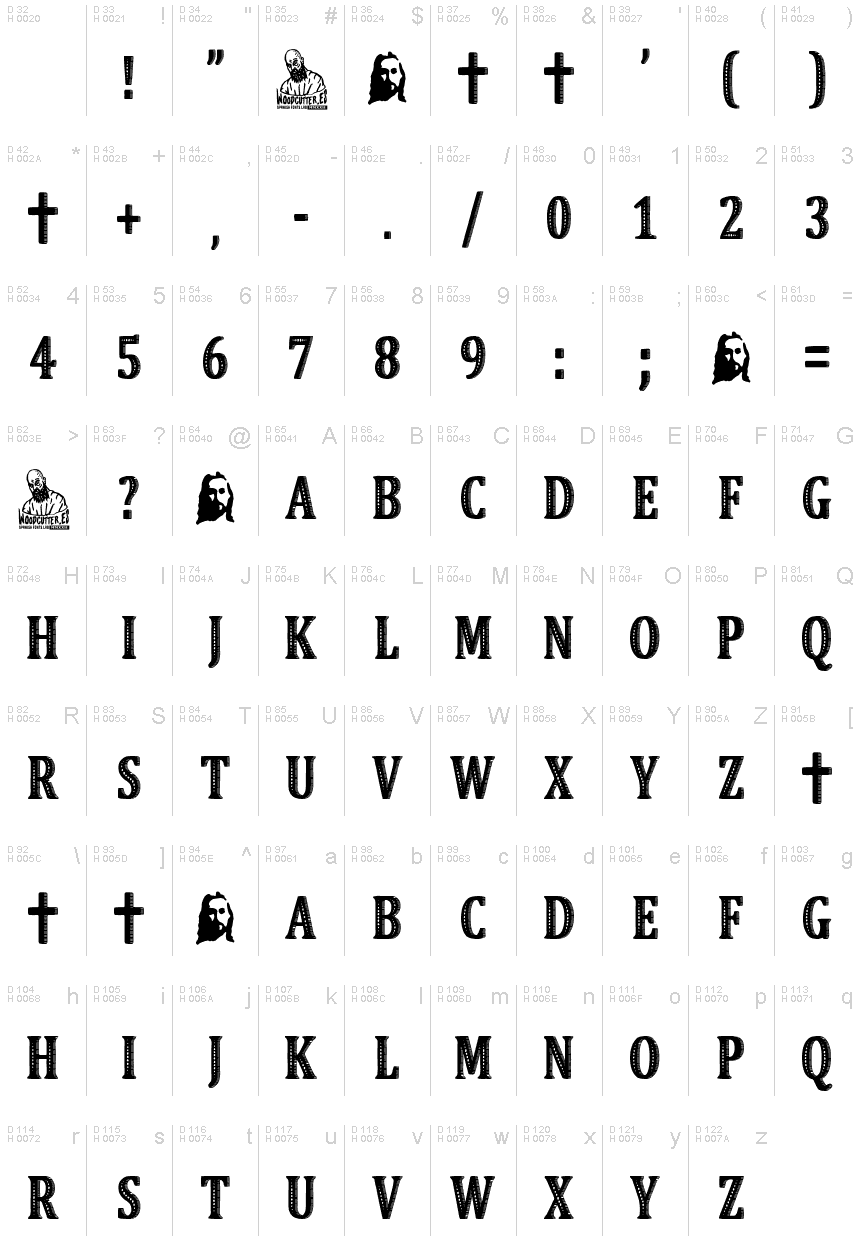
Vintage Faith
Vintage Faith, a bold and condensed display font designed by Woodcutter, is the perfect choice for projects that require a touch of vintage charm. Its decorative style boasts elegant curves and intricate details that add a nostalgic feel to any design. This versatile typeface is suitable for a wide range of projects, from branding materials to product packaging, signage, and print advertisements. Use Vintage Faith to evoke the timeless elegance of retro-inspired designs or to add a touch of sophistication to modern creations. With its bold weight and condensed width, this font commands attention while maintaining legibility at any size.